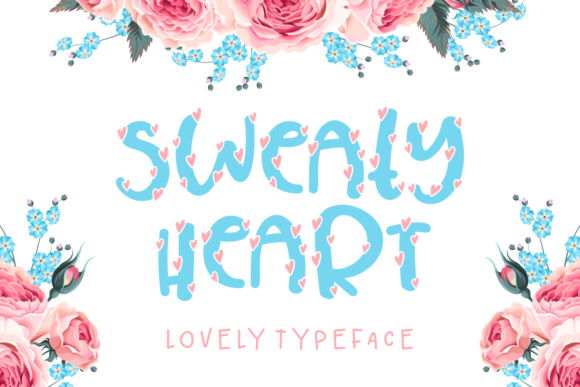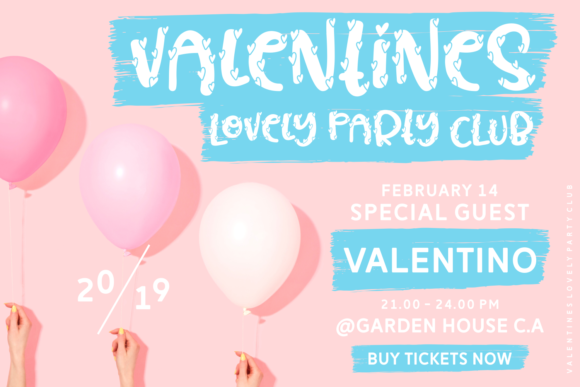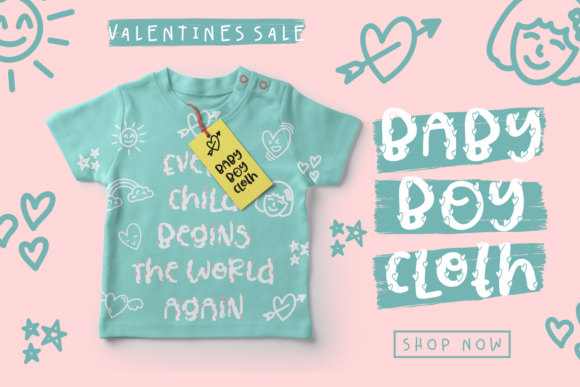
Sweaty Heart Font
About Sweaty Heart Font
Sweaty Heart is an unique Valentine-ready font, filled with little hearts.
The letters overflow with love and are perfect for creating Valentine or Wedding themed designs.